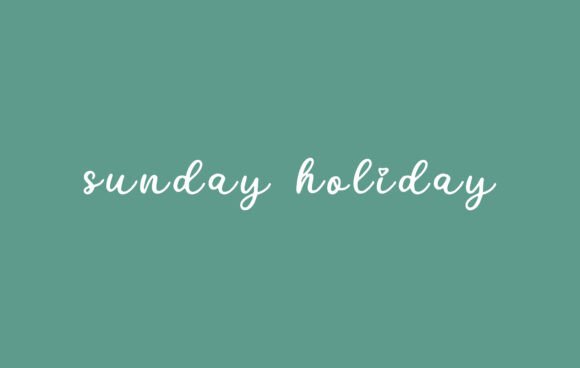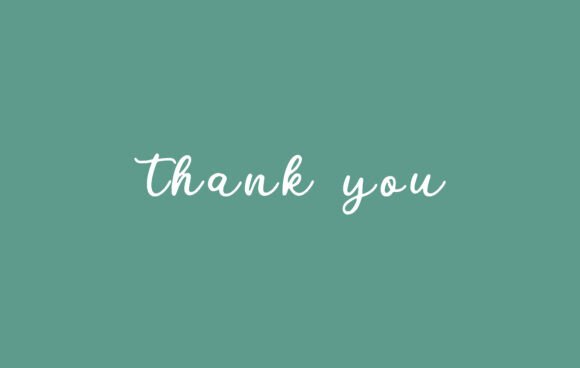
The Perfect Brushstroke: Elevating Your Designs with the Chicozapote Font
Have you ever sat down with a blank page, a cup of coffee, and a flickering spark of creativity? The world is full of blank canvases, waiting for the brushstrokes of imagination to bring them to life. For designers, this moment is a thrilling dance between inspiration and execution. The right tool can make all the difference, and that’s where the Chicozapote Font comes in – an authentic handwritten font with a romantic touch.
Expertly designed to capture the essence of a bygone era, the Chicozapote Font is more than just a font – it’s a partner in creativity. Its legibility and versatility make it a true favorite among designers, perfect for magazine headlines, social media, branding, and so much more. Whether you’re crafting a wedding invitation or a social media post, the Chicozapote Font has the potential to elevate your designs to new heights.
Chicozapote Font Key Features
- Font Family: Chicozapote
- Unique Characteristics: Chicozapote is a handwritten script font, featuring a natural and organic feel, perfect for creating a personal and creative atmosphere in designs.
Designer Review: Chicozapote Font
At first glance, the Chicozapote Font seems like a promising addition to any designer’s toolkit. I was immediately drawn in by its unique blend of elegance and playfulness. Here are some aspects where it truly shines:
- ✨ Versatility: The Chicozapote Font can be used in a wide range of contexts, from formal headings to casual body text, and still manage to hold its own.
- ✨ Expressiveness: This font has a unique character that makes it stand out from the crowd, perfect for designers looking to add some personality to their projects.
- ✨ Legibility: Despite its quirky charm, the Chicozapote Font is surprisingly easy to read, making it a great choice for longer pieces of text.
- ⚠️ Limited compatibility: The Chicozapote Font may not work seamlessly across all platforms or devices, which could be a concern for designers working on complex projects.
- ⚠️ Potential for overuse: The font’s unique character can also make it feel overused or even gimmicky if not applied thoughtfully.
Overall, I’d say the Chicozapote Font is a solid choice for designers looking to add some visual interest to their projects. While it may not be perfect, its strengths far outweigh its limitations, making it a worthwhile addition to any font collection.
The Chicozapote Font is ideal for use in creative and design-heavy projects, such as:
- Graphic design and branding materials
- Illustrations and infographics
Alternatives to Chicozapote Font
Oswald Font is a sans-serif typeface that offers a modern and clean look. It’s suitable for use in headings and titles, as well as body text where a clear and legible font is required. Oswald Font is a great alternative to Chicozapote Font for designers who need a font that’s both professional and easy to read.
Comparison to Chicozapote Font: Oswald Font has a more geometric and modern feel compared to Chicozapote Font’s rounded and elegant appearance. While both fonts are suitable for body text, Oswald Font is better suited for headings and titles.
Lato Font is a modern sans-serif typeface that offers a clean and elegant look. It’s suitable for use in body text, headings, and titles, and is particularly well-suited for use in digital design and web development. Lato Font is a great alternative to Chicozapote Font for designers who need a font that’s both stylish and readable.
Comparison to Chicozapote Font: Lato Font has a more modern and sleek feel compared to Chicozapote Font’s rounded and elegant appearance. While both fonts are suitable for body text, Lato Font is better suited for digital design and web development.